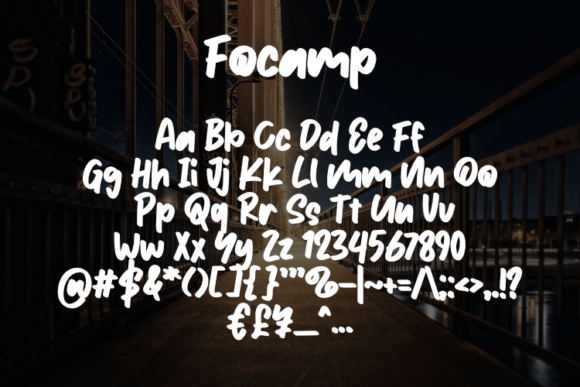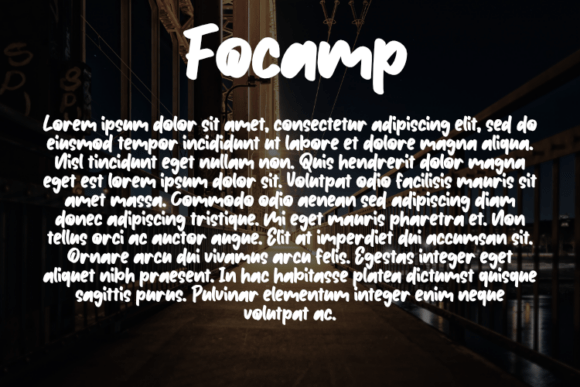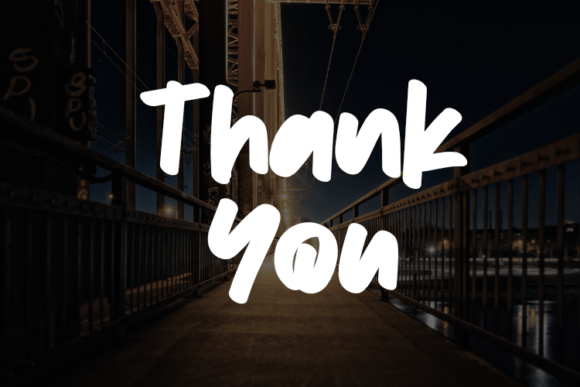
The Focamp Font: A Modern Elegance for Creative Minds
What Makes Focamp Special?
What I Love About Focamp ✨
- ✅ Elegant and sophisticated design
- ✅ Excellent readability across various media
- ✅ Wide range of applications, from branding to digital design
- ⚠️ Limited availability of certain OpenType features in some software
- ⚠️ May require manual adjustments for optimal kerning
The Backstory of Focamp
Focamp was designed with the goal of creating a versatile and elegant typeface that could cater to various design needs. The designer aimed to craft a font that would be both modern and timeless, with a focus on readability and flexibility. Although the designer’s identity remains anonymous, their passion for typography and design is evident in the final product.